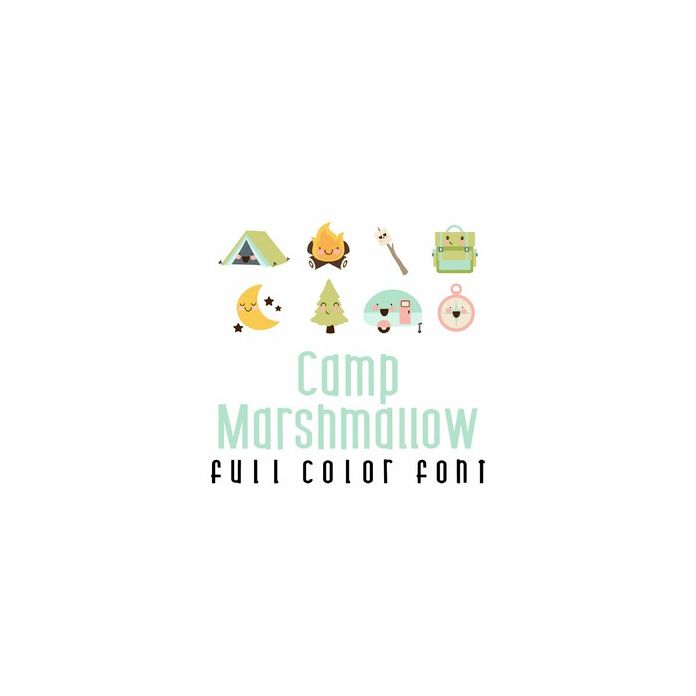
This adorable full-color doodlebat font features 26 kawaii style camping images. Perfect for cards, crafts, gifts, decor, scrapbook pages, planner stickers, and more!